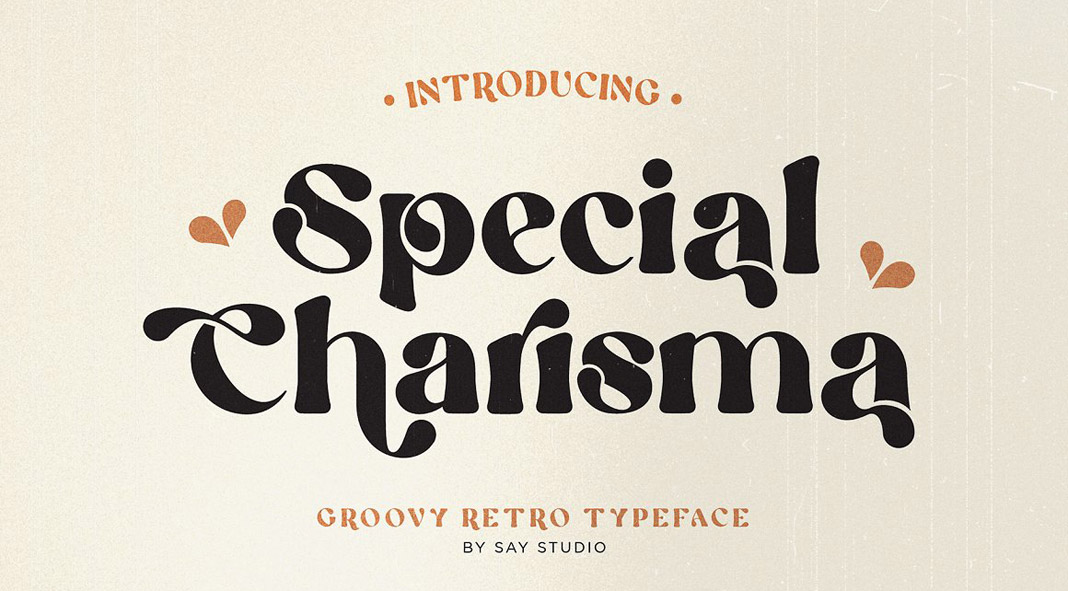
Download a stylish vintage retro font with a special charisma.
As the name suggests, Say Studio’s Special Charisma font provides a unique look and feel. This lovely vintage retro font is inspired by the groovy vibe of the 60s and 70s. In full display size, the Special Charisma font will give your typographic work a striking look but on the other hand, it’s also easily readable in normal text sizes. The typeface comes with numerous OpenType features including a large selection of alternate glyphs and ligatures. The font comes in three versions: REGULAR, ITALIC, and OUTLINE. Just click on the following link to learn more about all typographic features and licensing options.